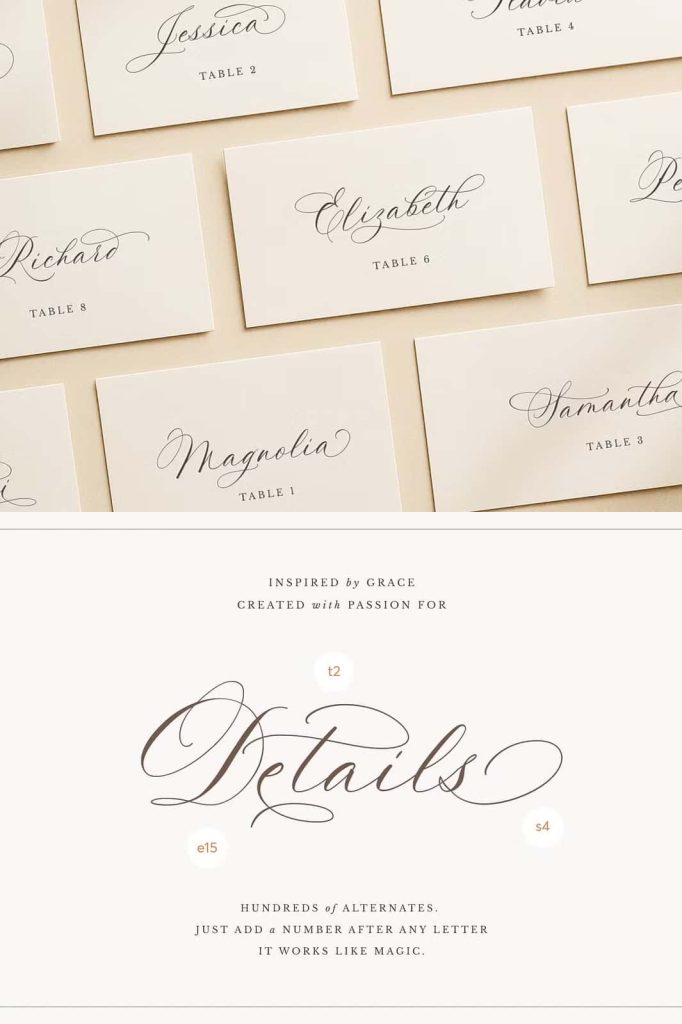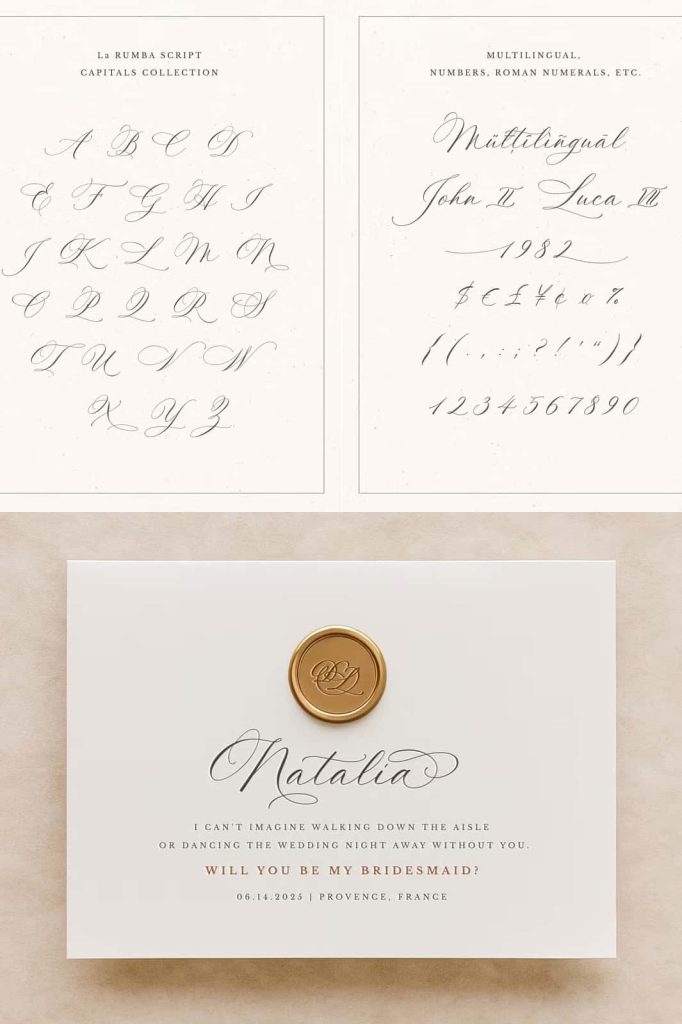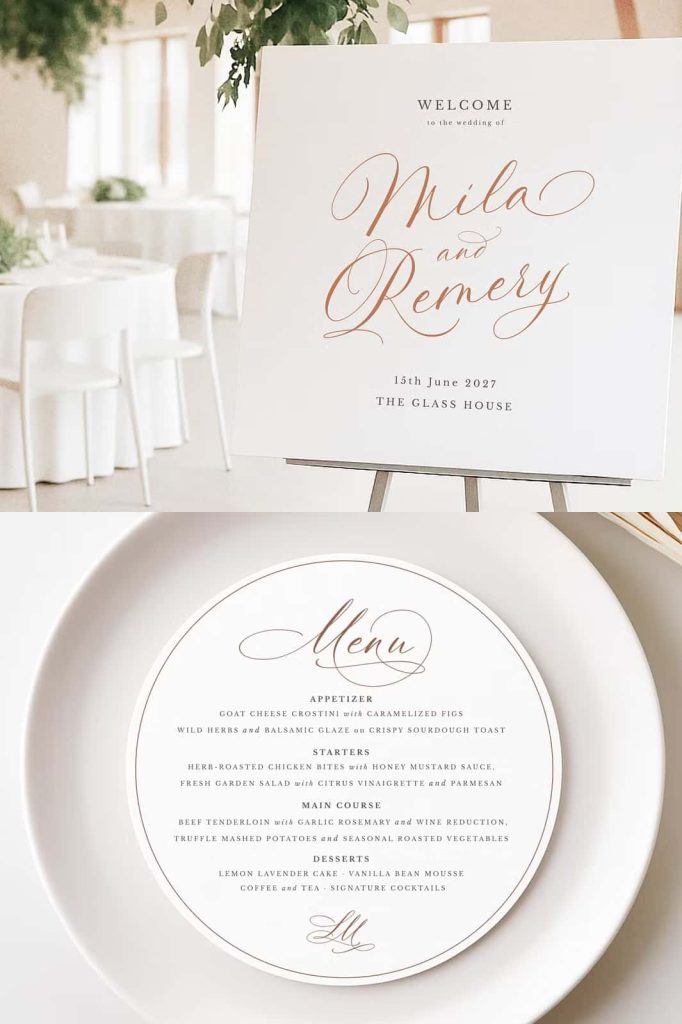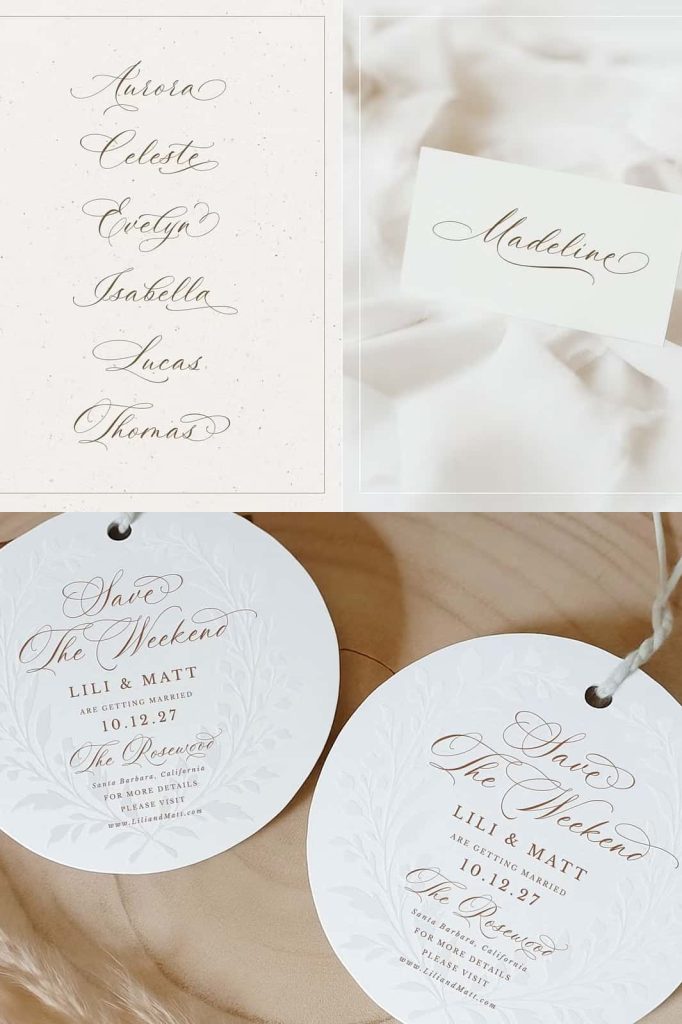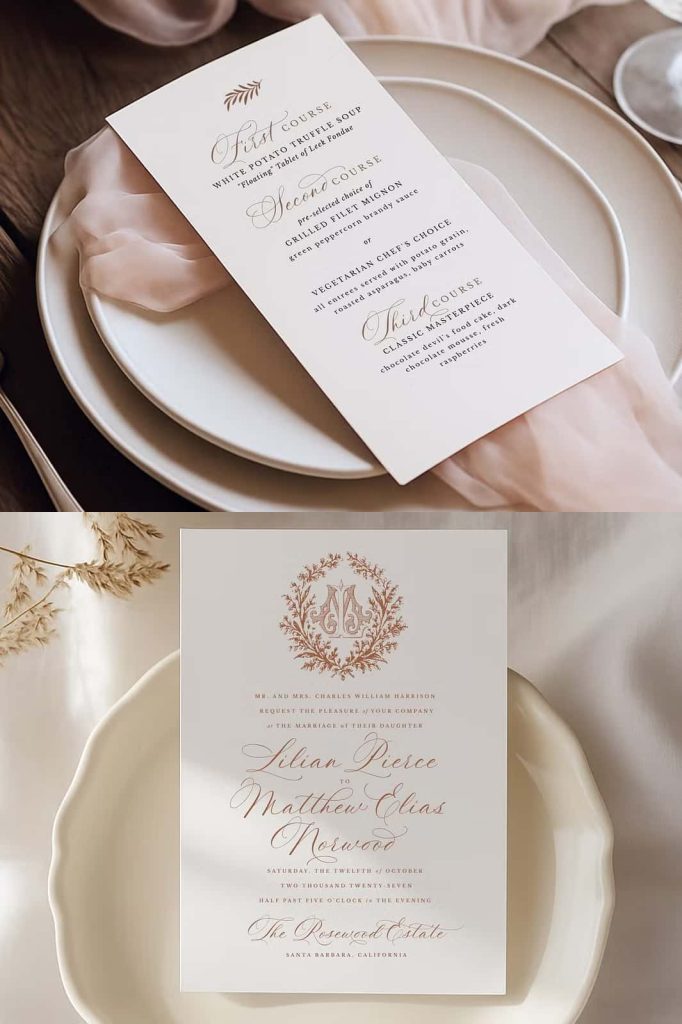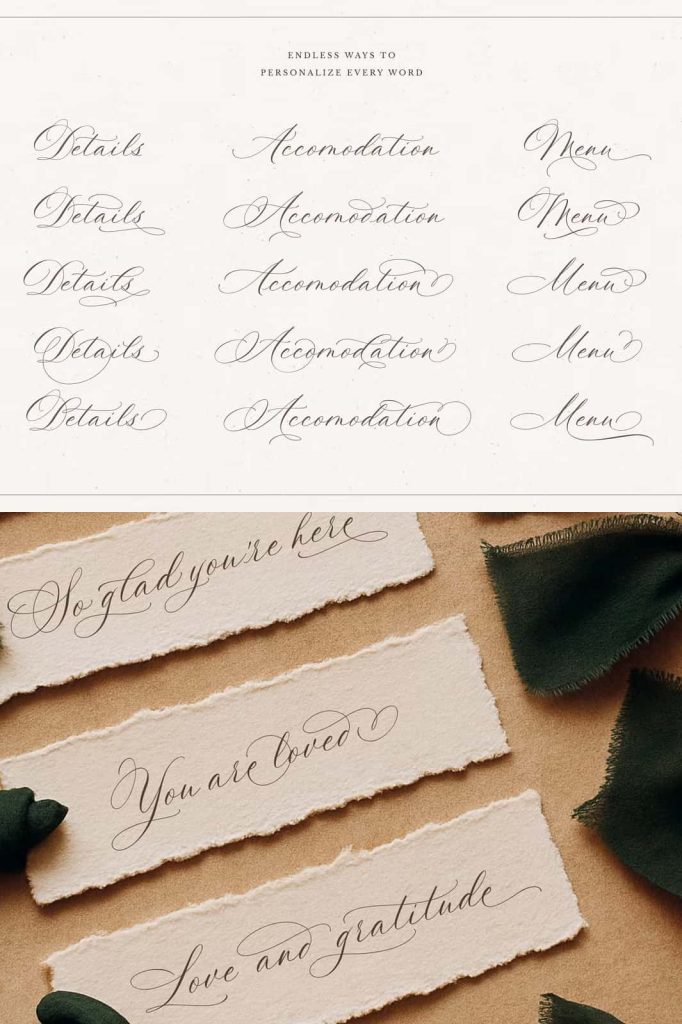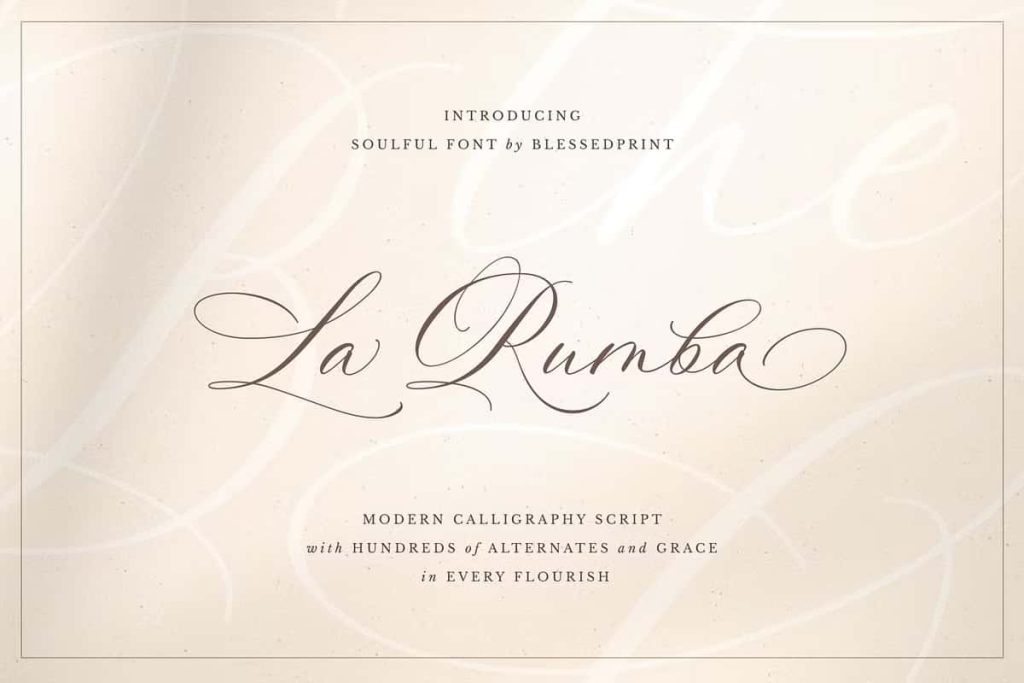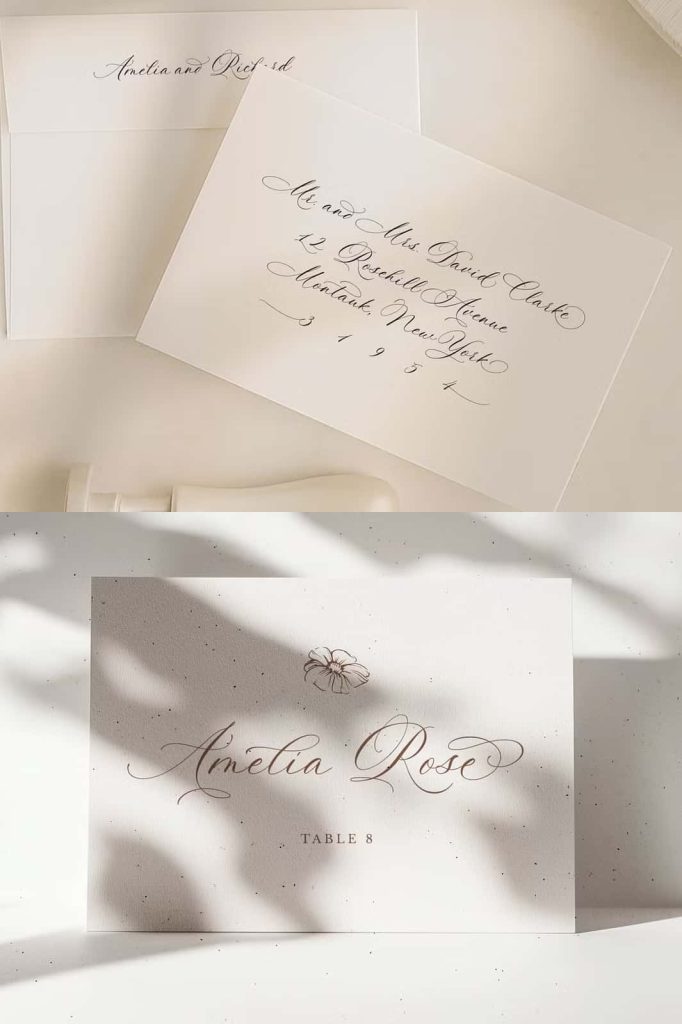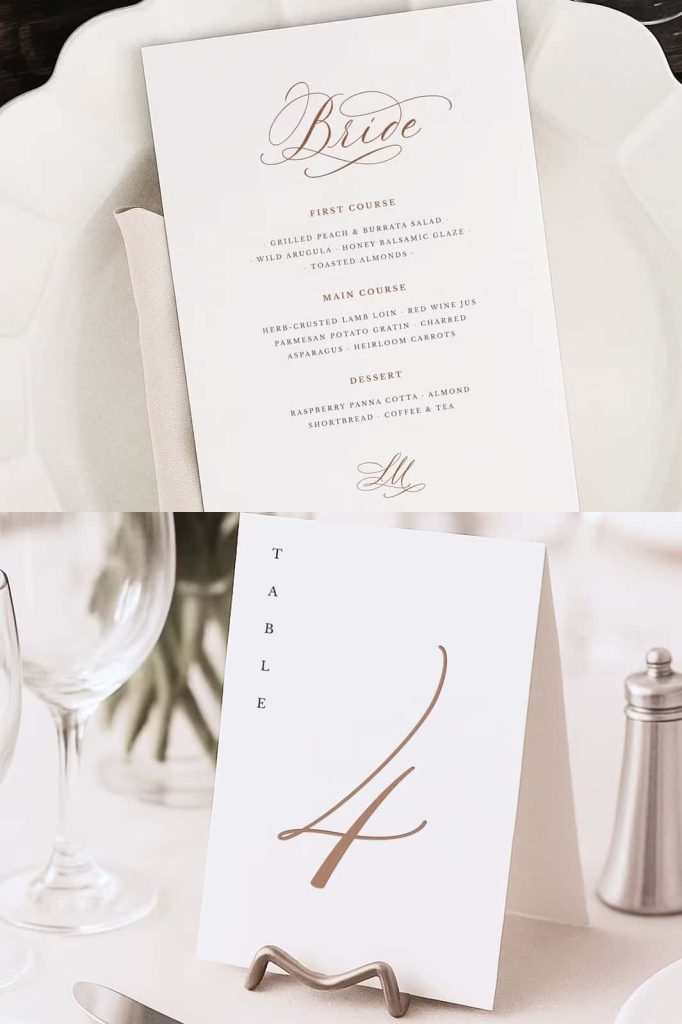
La Rumba Handwritten Script Font: Romantic Elegance with Expressive Freedom
La Rumba is a refined handwritten script font that blends romantic charm with the fluid beauty of modern calligraphy. Designed to elevate your typography, this typeface introduces graceful strokes, dynamic movement, and a sense of personal expression into every letter. It transforms simple words into visually captivating compositions that feel both intimate and sophisticated.
This font empowers designers to move beyond static text and explore the art of lettering with greater creativity. Whether you want to craft elegant branding or create visually rich invitations, La Rumba delivers the flexibility and style needed to stand out.
The Inspiration Behind La Rumba
La Rumba draws inspiration from the timeless elegance of handwritten calligraphy combined with a contemporary approach to lettering. It captures the natural flow of ink on paper, where each stroke feels intentional yet free. This balance between control and spontaneity gives the font its distinctive personality.
The design embraces romance and artistic expression. It reflects the beauty of handwritten notes, love letters, and carefully crafted scripts that carry emotion within every curve. By translating this experience into a digital format, La Rumba allows designers to achieve an authentic calligraphic feel without sacrificing efficiency.
Distinctive Features of La Rumba
Rich Alternates for Maximum Creativity
La Rumba offers an impressive range of alternates that dramatically expand your design possibilities. Each lowercase letter includes up to 20 alternate forms, while every uppercase character features 6 to 10 variations. This extensive selection allows you to customize each word and avoid repetitive patterns.
Fluid and Graceful Letterforms
The font’s strokes flow naturally, creating a rhythm that feels smooth and harmonious. Curves transition seamlessly into one another, giving the text a sense of motion and elegance. This fluidity enhances readability while maintaining a decorative appeal.
Modern Calligraphy Style
La Rumba merges traditional calligraphy techniques with a modern aesthetic. It avoids overly rigid structures, instead embracing expressive lines and subtle variations that make the lettering feel alive and contemporary.
Elegant and Romantic Tone
The overall tone of the font leans toward elegance and romance. It works perfectly for designs that aim to evoke emotion, beauty, and sophistication, making it a popular choice for personal and high-end projects.
Best Use Cases for La Rumba
La Rumba excels in projects that require a personal, artistic, and elegant touch. Its versatility makes it suitable for:
- Wedding invitations and event stationery
- Luxury branding and logo design
- Social media graphics and promotional materials
- Packaging design for beauty, fashion, and lifestyle products
Designers often use La Rumba for headlines, signatures, and decorative text elements. Pairing it with a clean sans-serif font can create a balanced composition that highlights its expressive qualities without overwhelming the layout.
Why Choose La Rumba?
La Rumba stands out because it combines beauty with functionality. The wide range of alternates allows you to craft truly unique typography, ensuring that no two designs look the same. This level of customization gives you full creative control over your work.
In addition, the font’s elegant and flowing design helps establish a strong emotional connection with the audience. It communicates sophistication, care, and attention to detail—qualities that elevate any project.
La Rumba is more than a handwritten script font; it is a creative tool that brings artistry and emotion into typography. With its romantic style, fluid movement, and extensive alternates, it offers endless possibilities for customization and expression. For designers who want to create elegant and memorable designs, La Rumba provides a graceful and powerful solution.